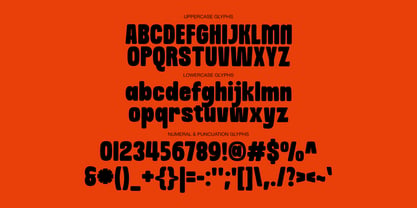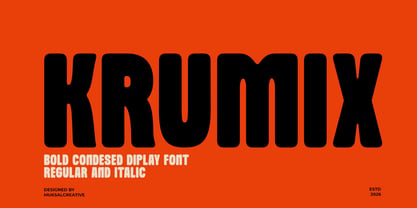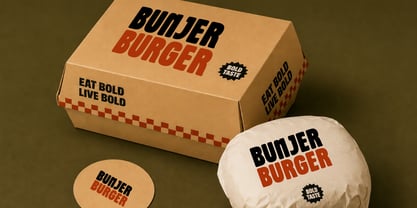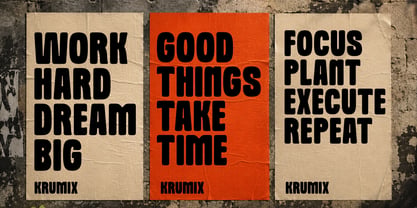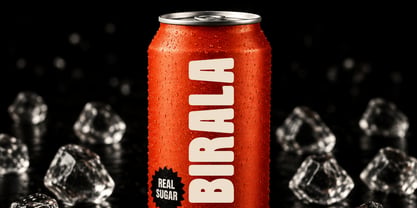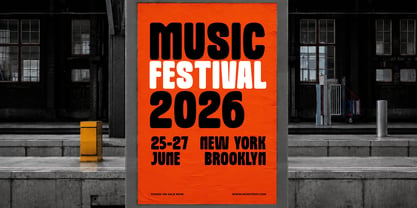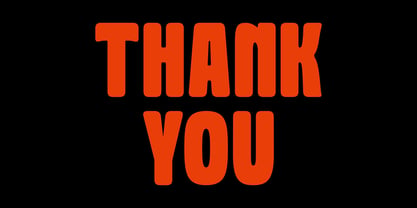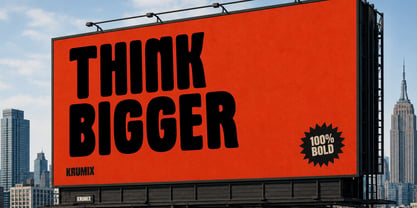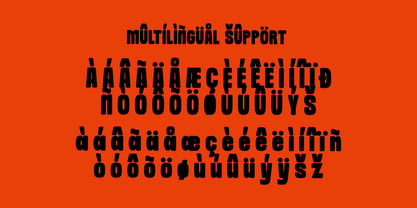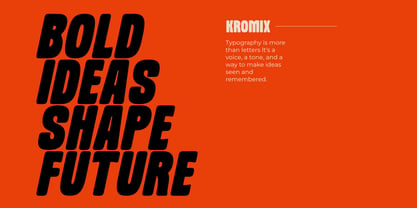
Krumix
por Muksal Creatives
La familia tipográfica Krumix fue diseñada por Muksalmina y publicada por Muksal Creatives. Krumix contiene 2 estilos y opciones de paquete familiar. Más información sobre esta familia
KRUMIX is a bold condensed display font designed to make a powerful visual statement. With its strong vertical proportions, rounded corners, and confident personality, KRUMIX delivers maximum impact while maintaining excellent readability.
Inspired by contemporary poster design, urban branding, and modern editorial layouts, KRUMIX is perfect for designers who want typography to become the centerpiece of their work. Whether you're creating eye-catching headlines or bold brand identities, KRUMIX brings energy, confidence, and character to every project.
Its condensed structure allows more words to fit into limited spaces without sacrificing visual strength, making it ideal for high-impact compositions.
Diseñadores: Muksalmina
Fundición: Muksal Creatives